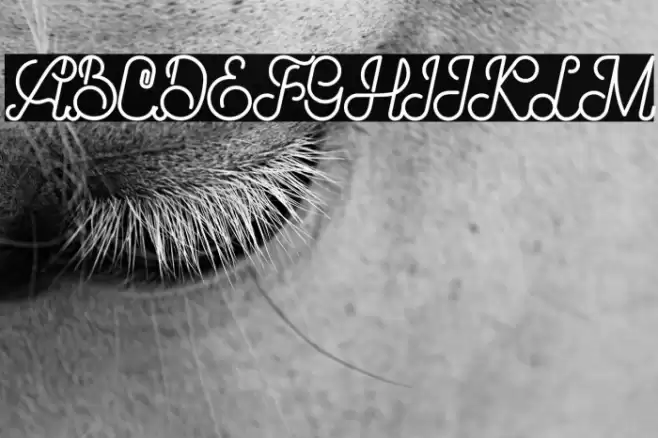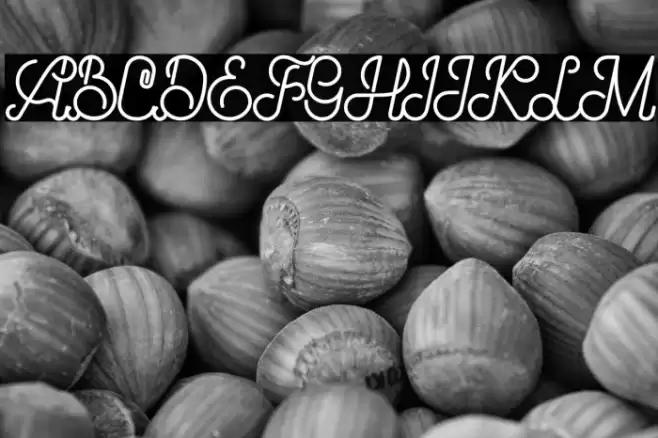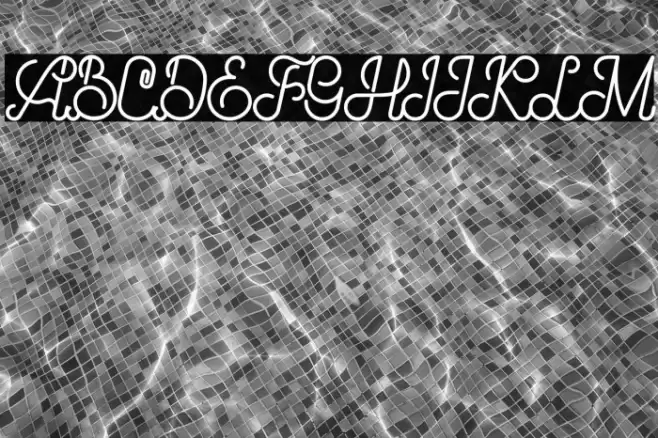
Brandy Script Font
Brandy Script Description
This font features a flowing, cursive style with a modern twist, characterized by smooth, continuous strokes that connect each letter seamlessly. The uppercase letters exhibit a graceful looped design, while the lowercase letters maintain a consistent rhythm with rounded edges and slight slants, enhancing readability. The numerals are clear and distinct, following the same elegant script style. Special characters are integrated with the same fluidity, ensuring a cohesive look across all text elements. The overall appearance is both sophisticated and approachable, making it suitable for a variety of design applications.
A modern, flowing cursive font with seamless connections and elegant loops from Uncategorized fonts.
- Font: Brandy Script
- Proposed Projects: Ideal for wedding invitations, elegant branding, personal stationery, and decorative signage.
- Use Case: Logos, Invitations, Decorative text